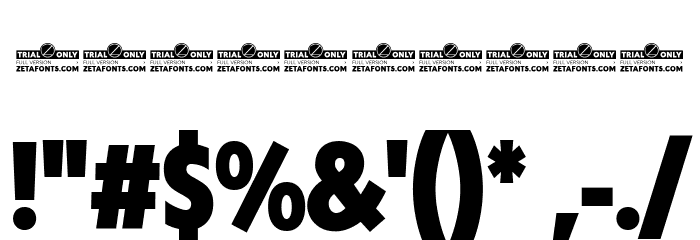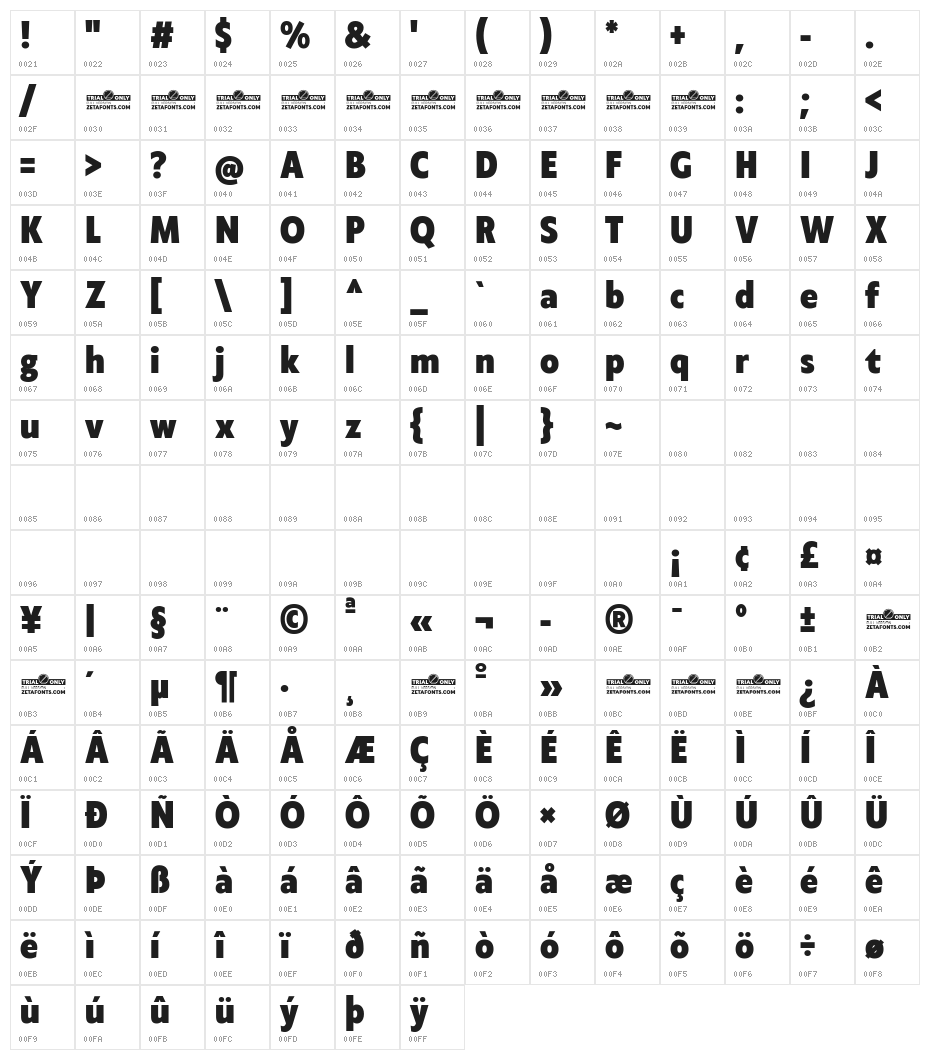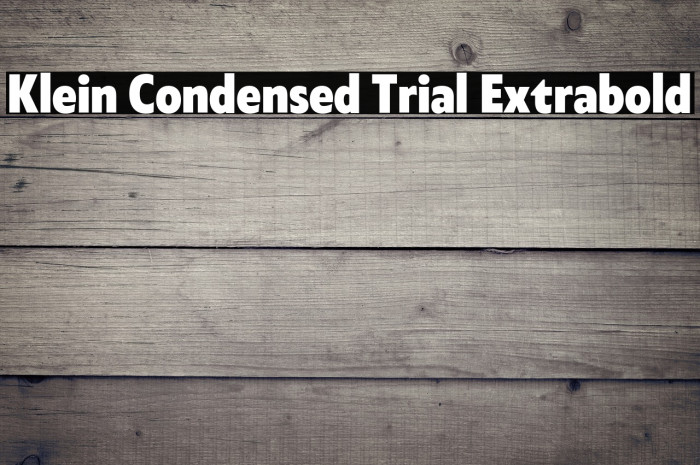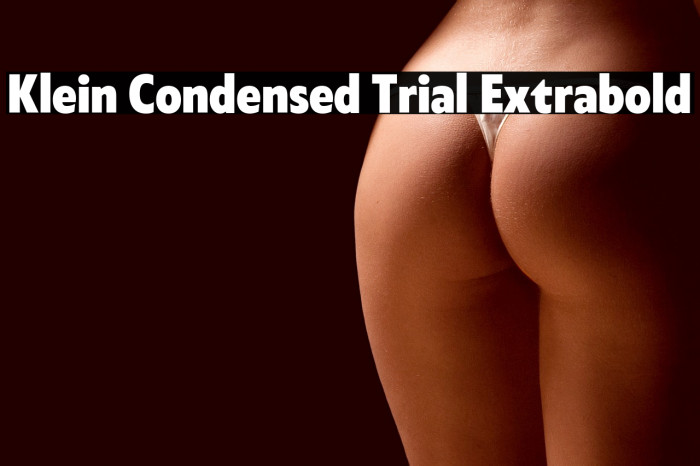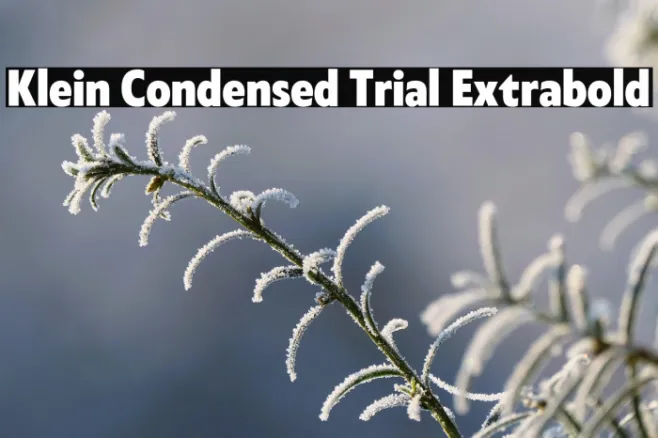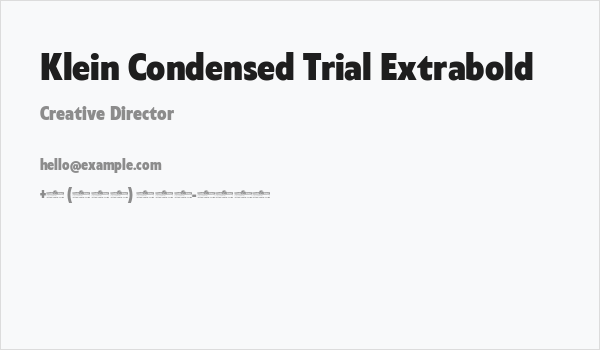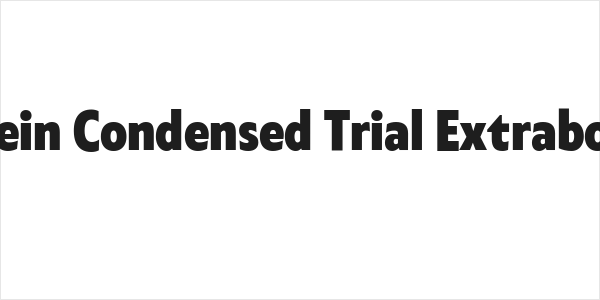
Klein Condensed Trial Extrabold Font
Klein Condensed Trial Extrabold Description
This font features a bold and impactful design with a condensed structure, making it ideal for creating a strong visual presence. The characters are uniformly thick, providing a consistent and powerful look across both uppercase and lowercase letters. The font's extra bold weight ensures that it stands out, while the condensed width allows for efficient use of space without sacrificing readability. The clean and modern style is complemented by a slight geometric influence, giving it a contemporary edge. It includes a full set of numerals and a variety of special characters, making it versatile for different design needs.